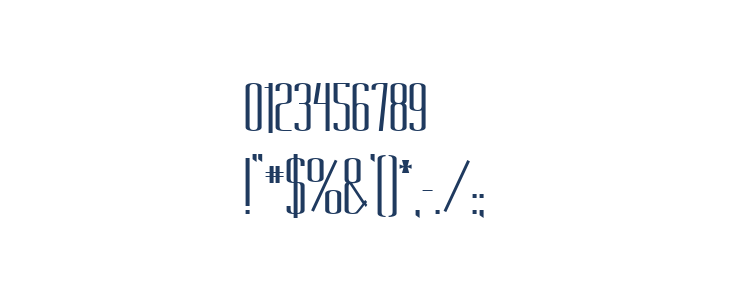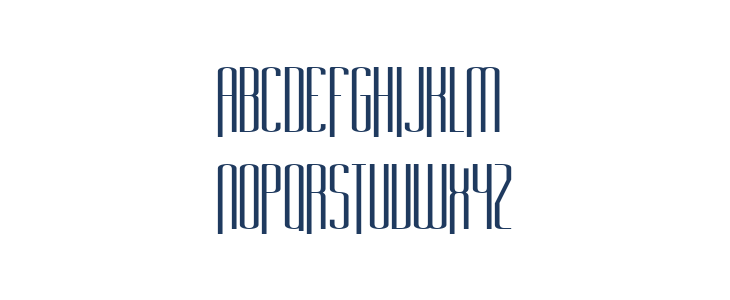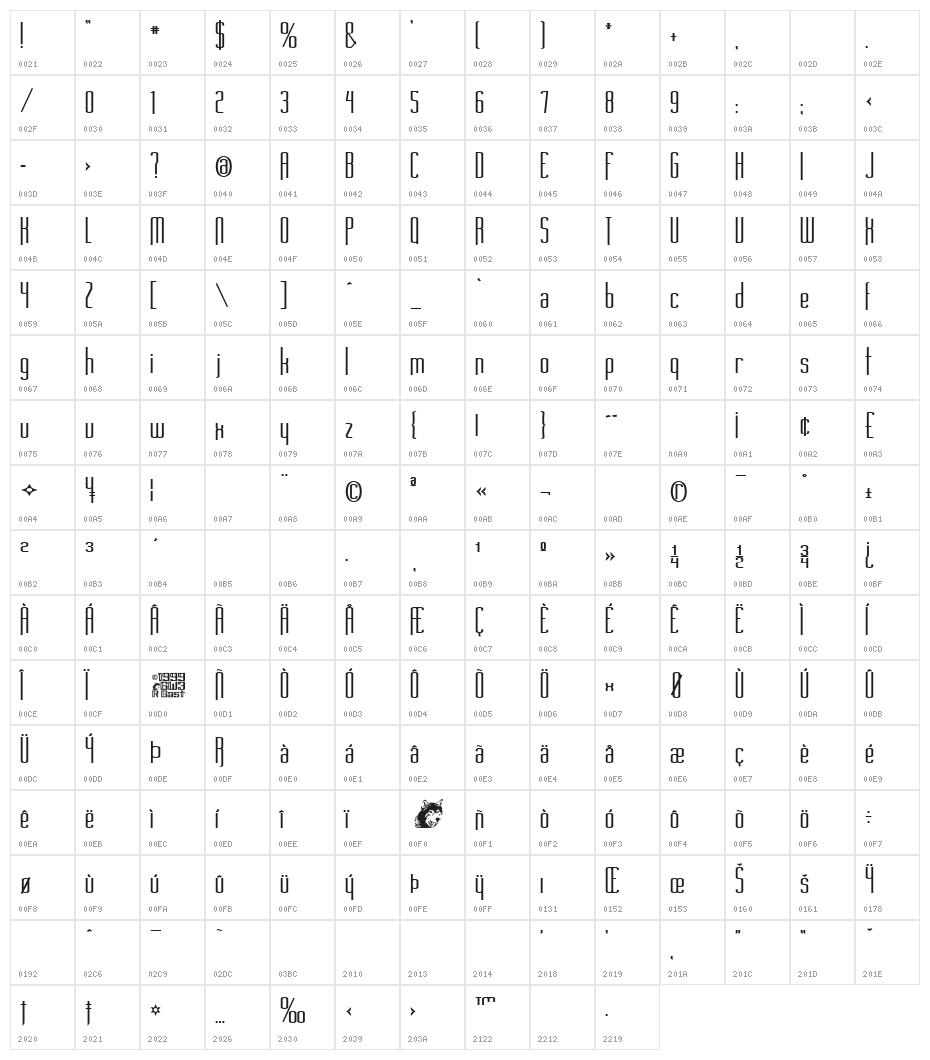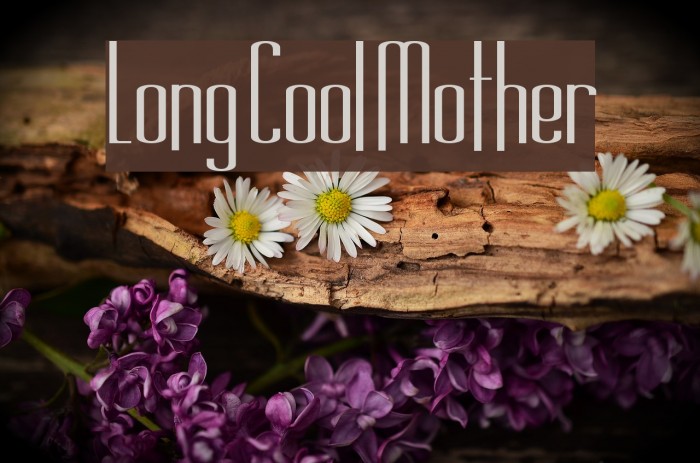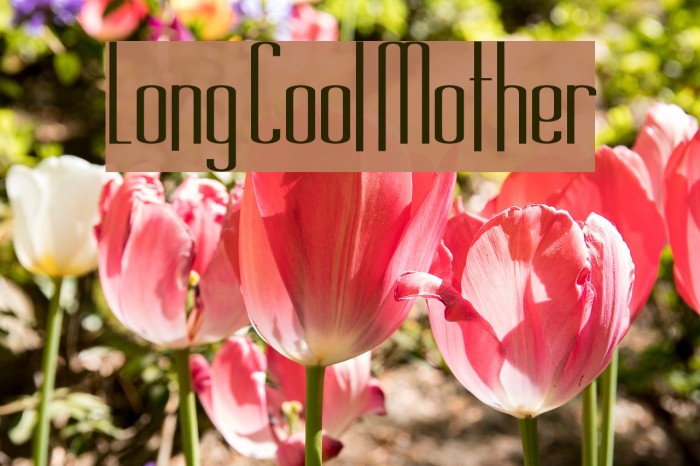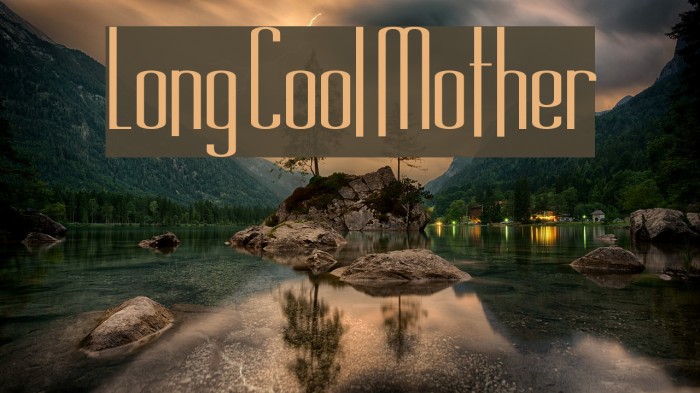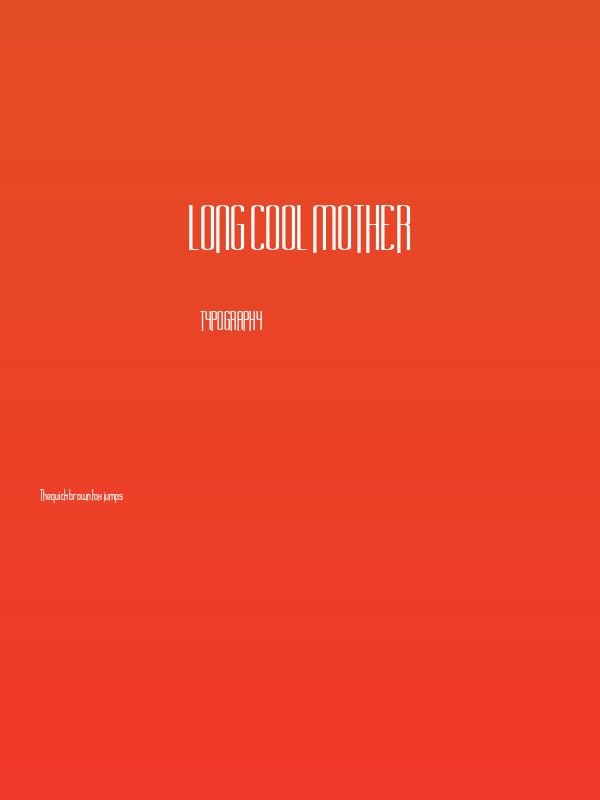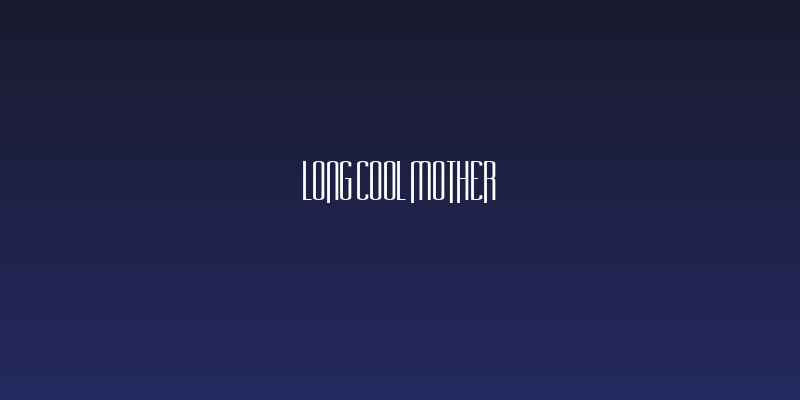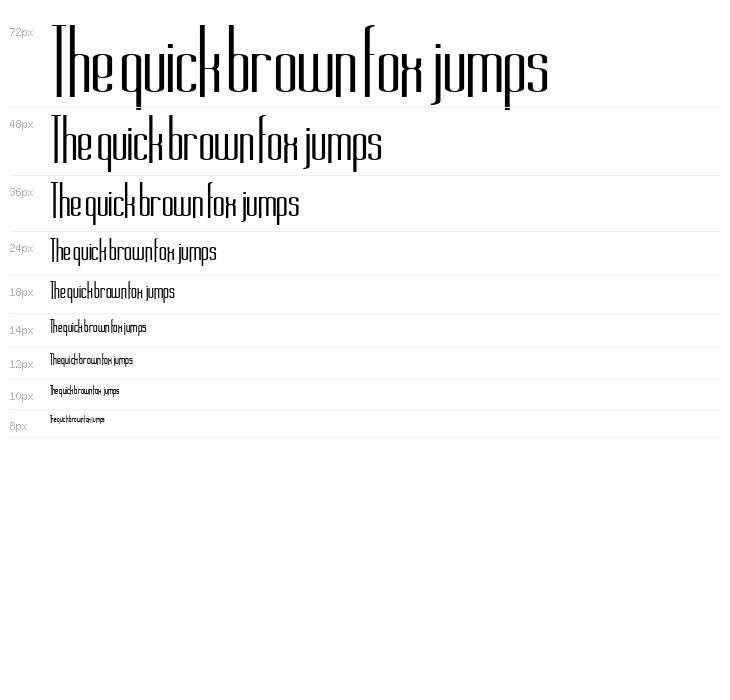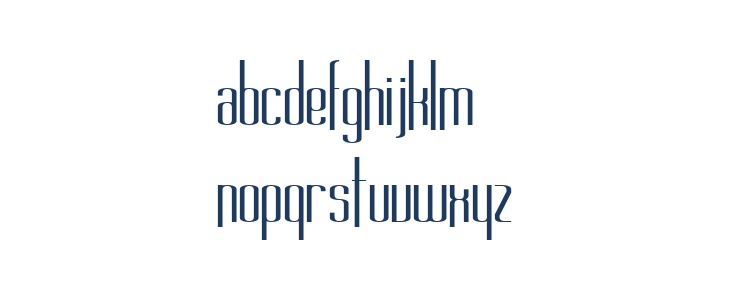
Long Cool Mother Font
Long Cool Mother Description
This font features a tall, narrow design with elongated characters that give it a sleek and modern appearance. The vertical emphasis is pronounced, creating a striking visual impact. The uppercase and lowercase letters maintain a consistent height, contributing to a uniform look. The numerals and special characters are designed to match the overall aesthetic, with clean lines and minimal embellishments. The font's geometric structure and minimal contrast in stroke thickness enhance its contemporary feel, making it suitable for projects that require a stylish and sophisticated touch.
Proposed ProjectsIdeal for fashion branding, modern posters, editorial headlines, and luxury packaging.